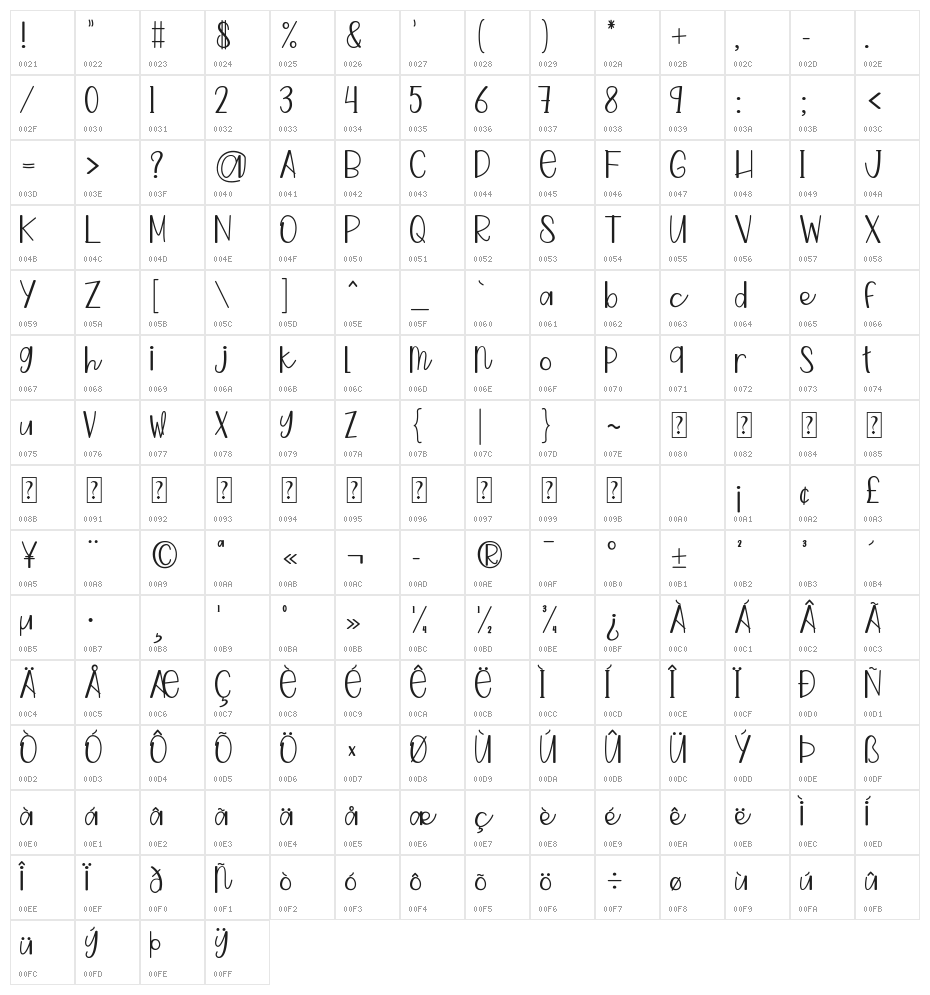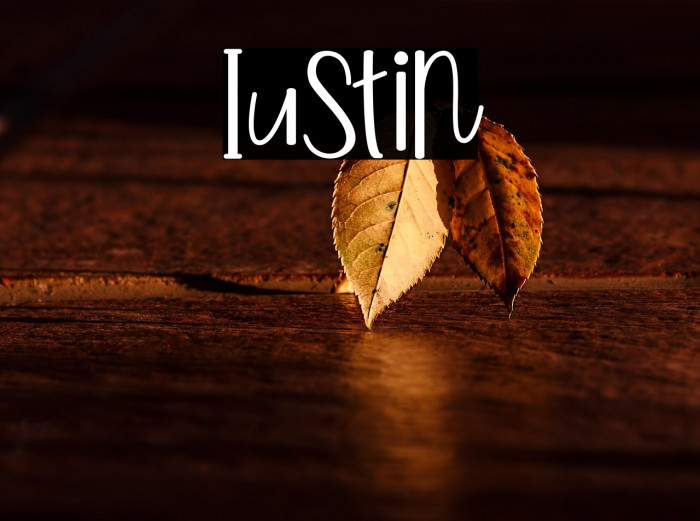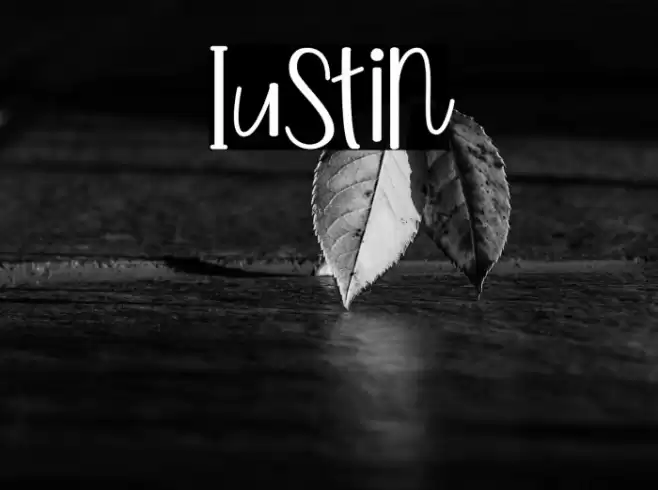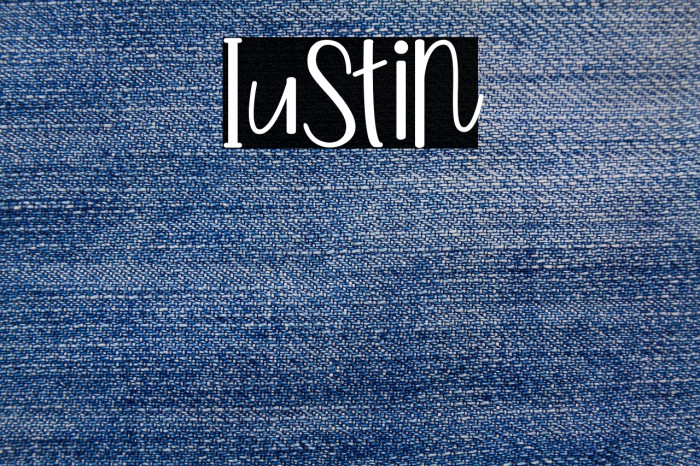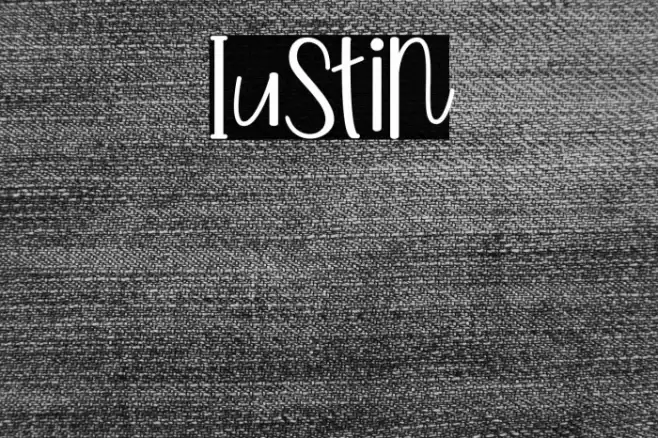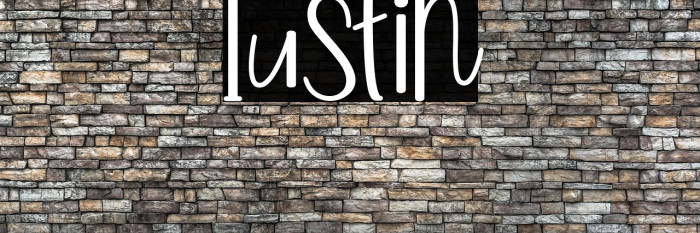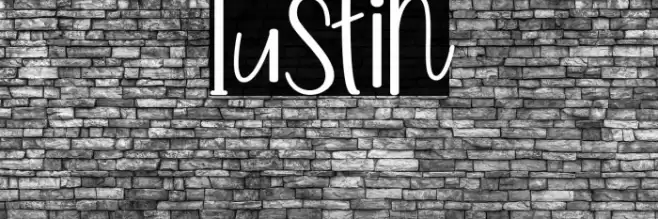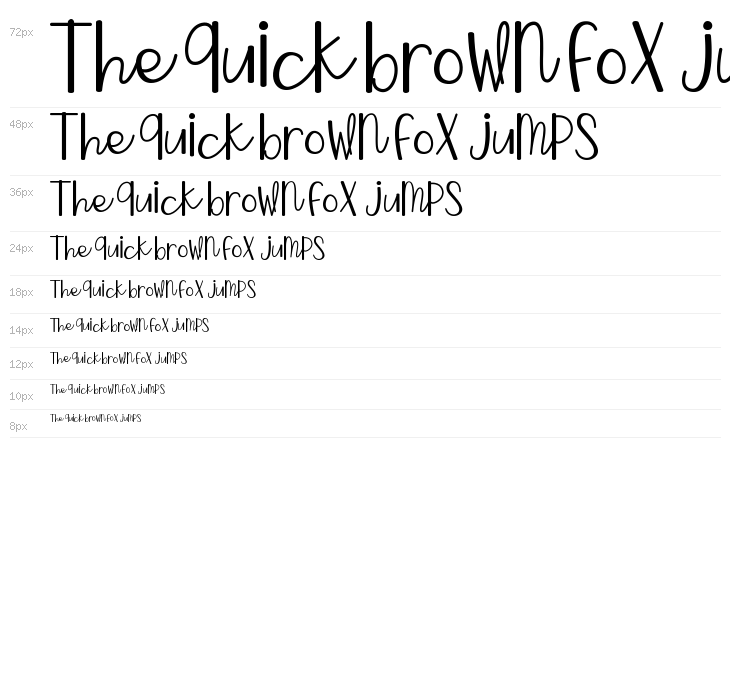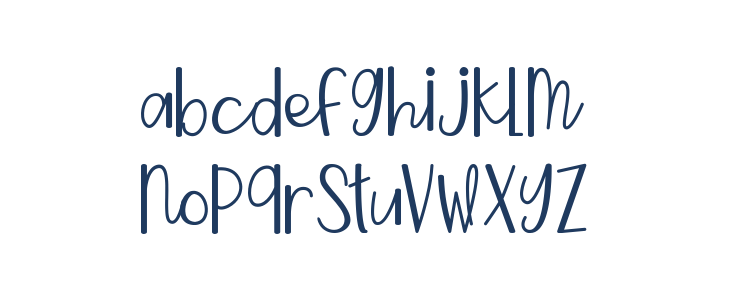
Iustin Font
Iustin Description
This font features a playful and whimsical style with a handwritten appearance. The letters are tall and slender, with a slight slant that adds a dynamic feel. The strokes are consistent in thickness, giving it a clean and modern look. The uppercase and lowercase letters are distinct, with the lowercase having a more casual and flowing form. Numbers and special characters maintain the same playful aesthetic, making it versatile for various uses. The overall design is approachable and friendly, suitable for projects that require a personal touch.
| Use Case | Logos, Headlines, Informal Texts |
| Proposed Projects | Ideal for greeting cards, children's books, playful branding, and social media graphics. |